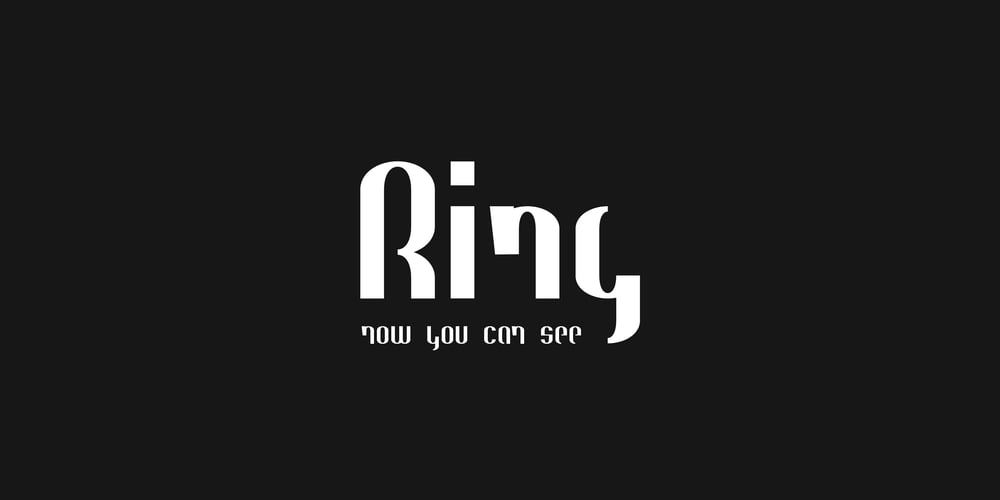
Ring Eyes
Ring Eyes font
Ring Eyes Font Family was designed by Dmitry Ochakov and published by Ochakov. Ring Eyes contains 4 styles and family package options. Now you can see… the new direction of the big family called Ring – Ring Eyes! That’s a very unique Ring & truly devoted. There are only four styles, but they are all very important. Ring Eyes font like our eyes held a million stories. Ring Eyes font like other of the Ring Family is the perfect choice for headlines, logos, branding, packaging, publications, and much more.